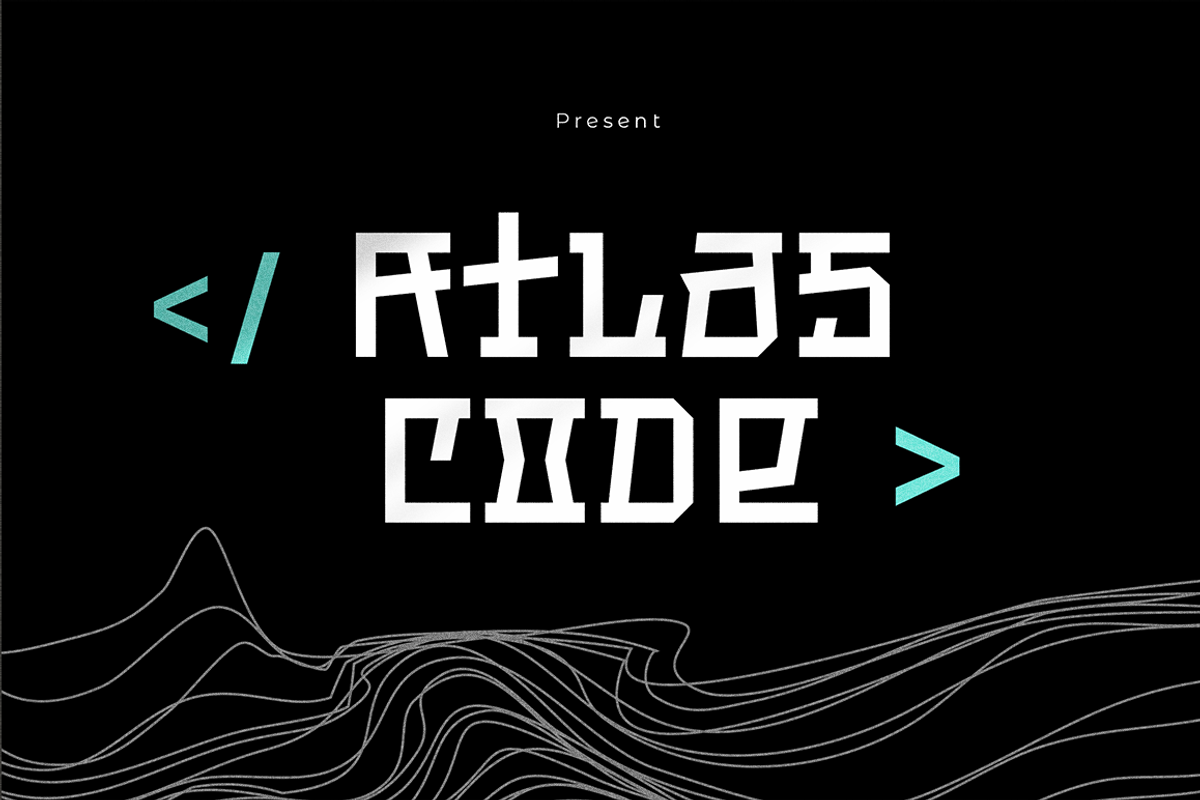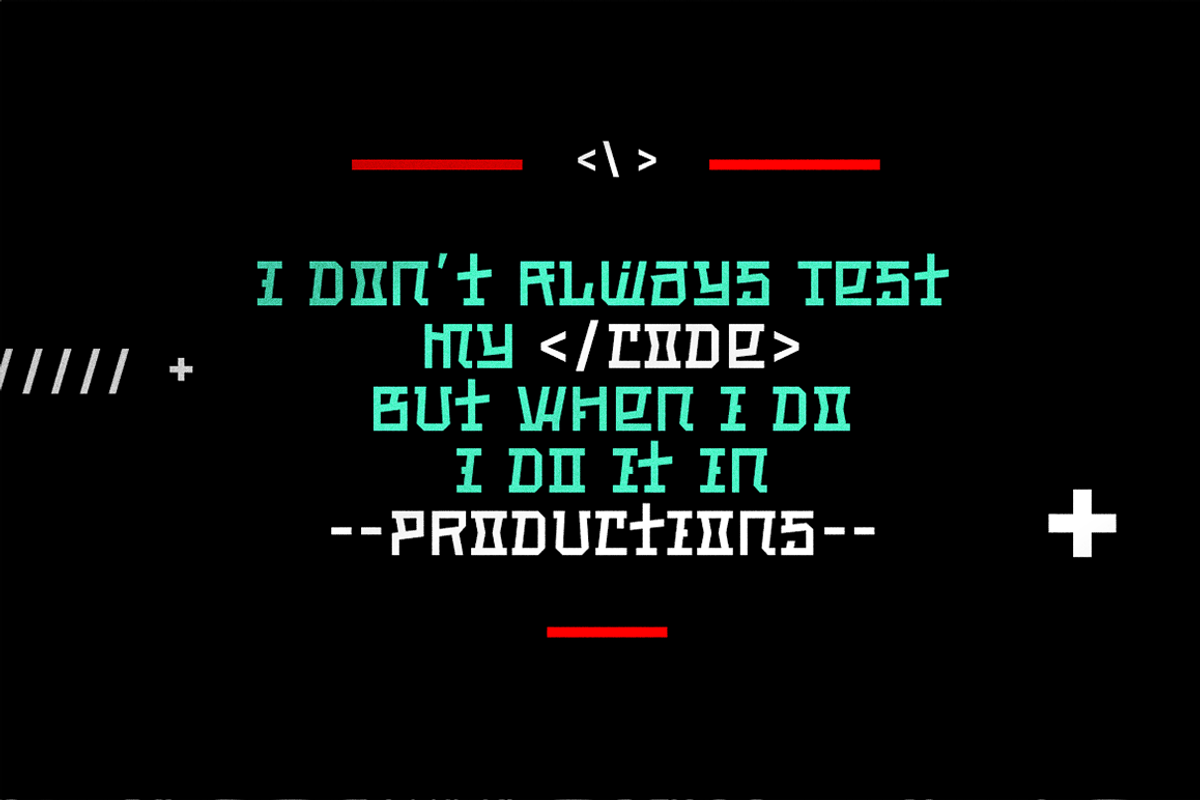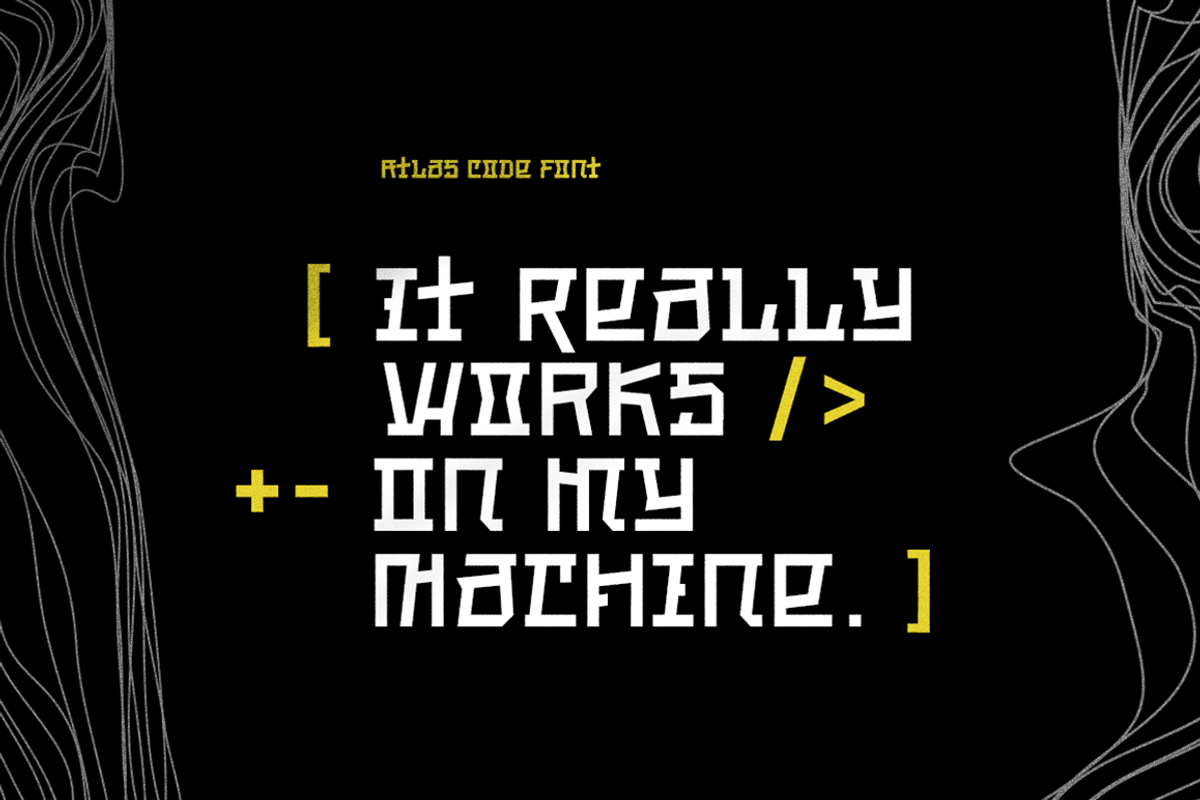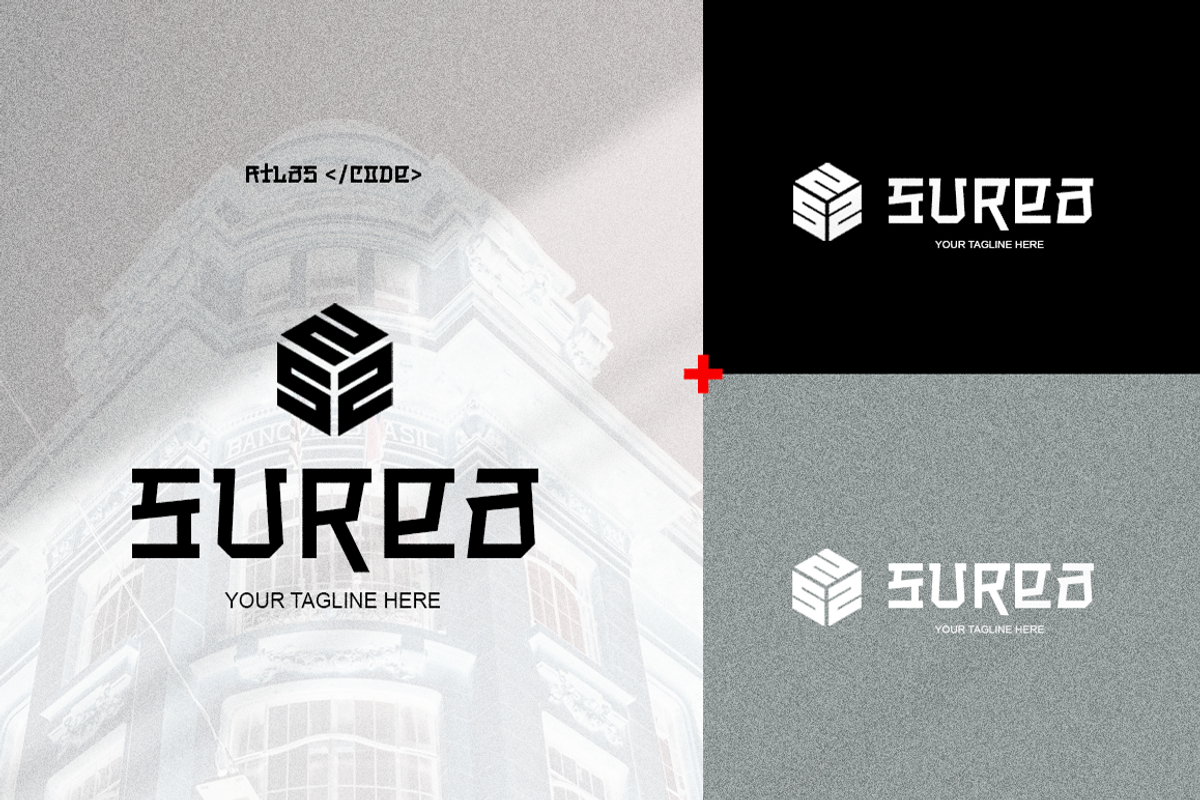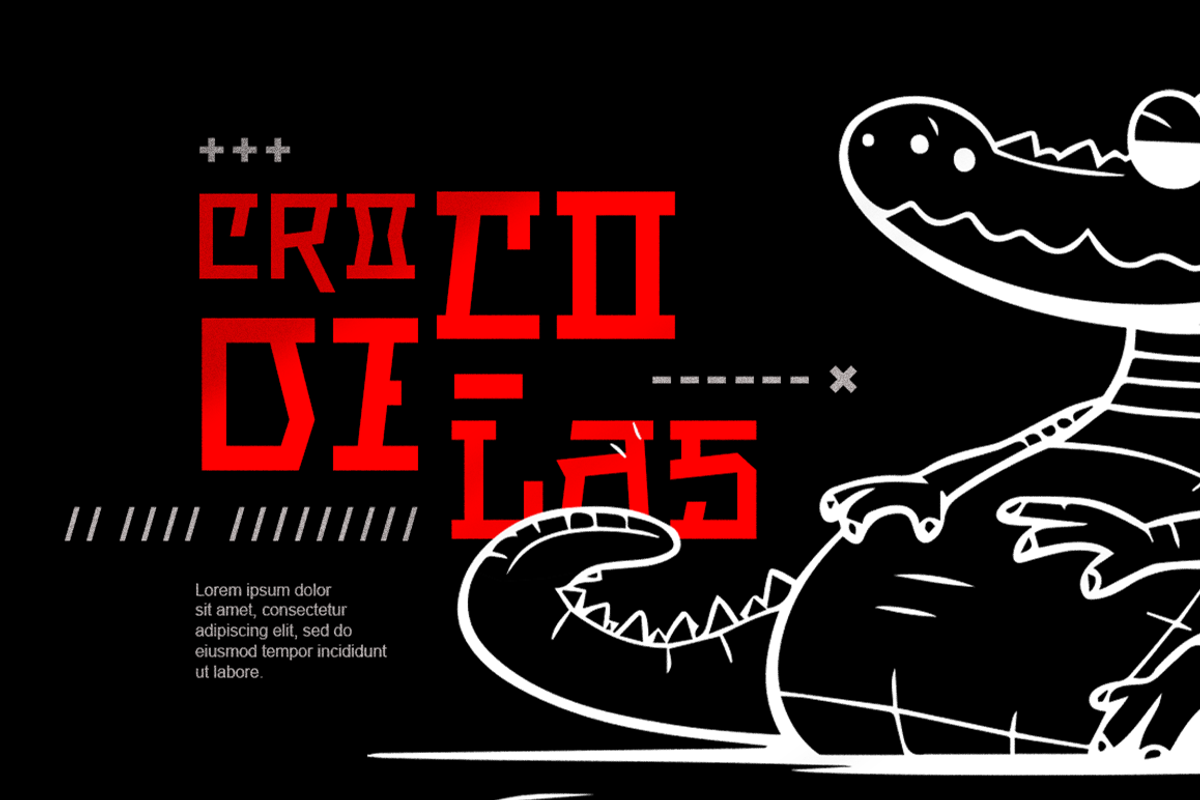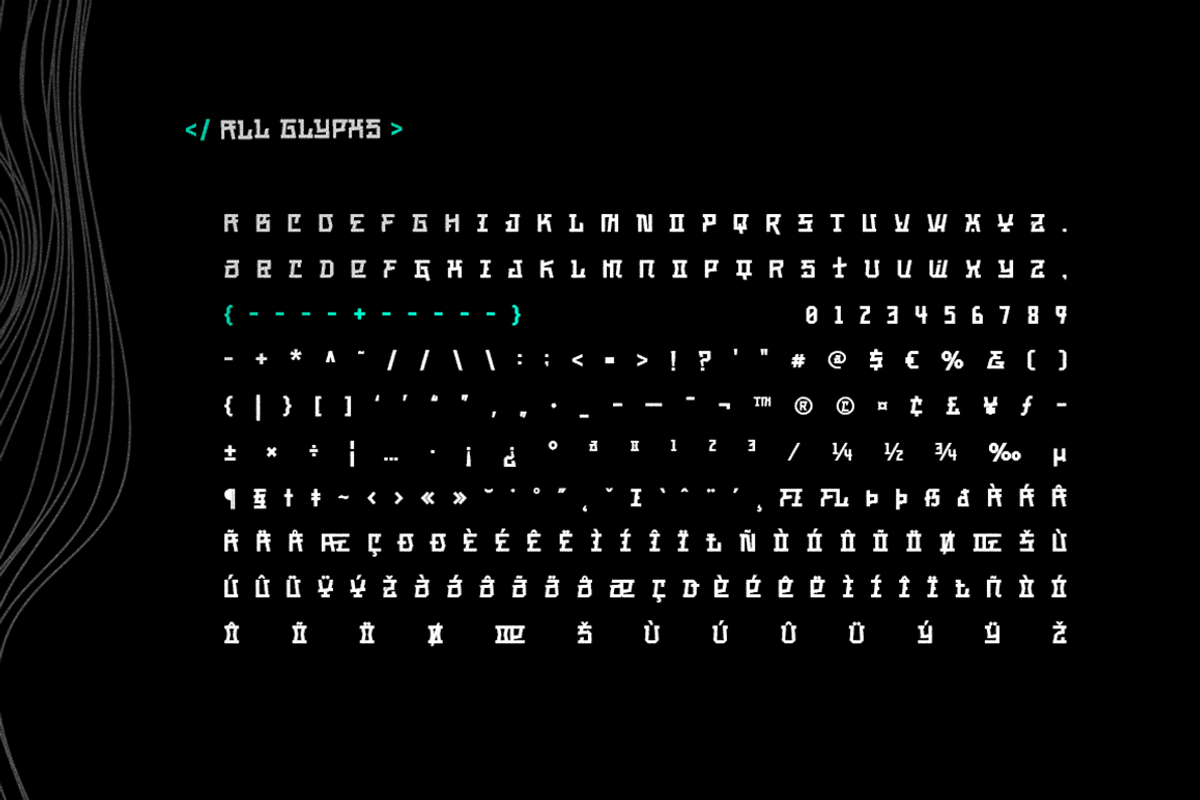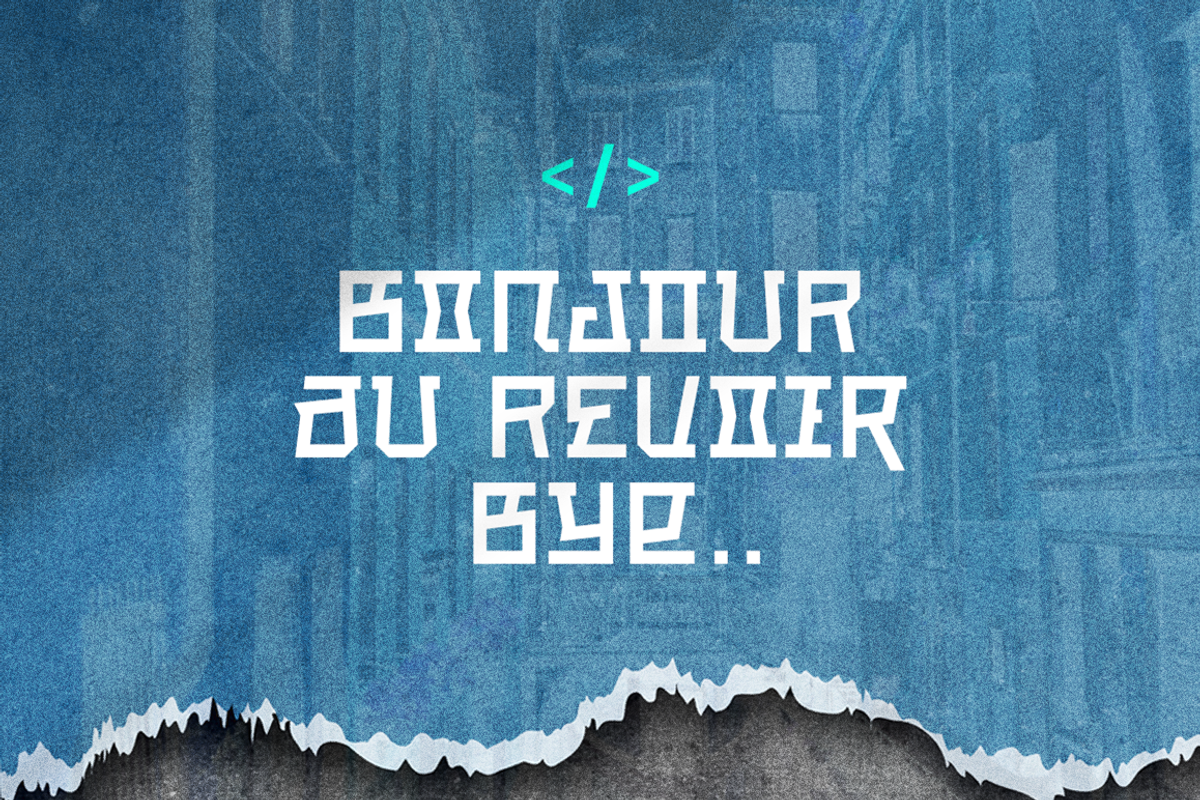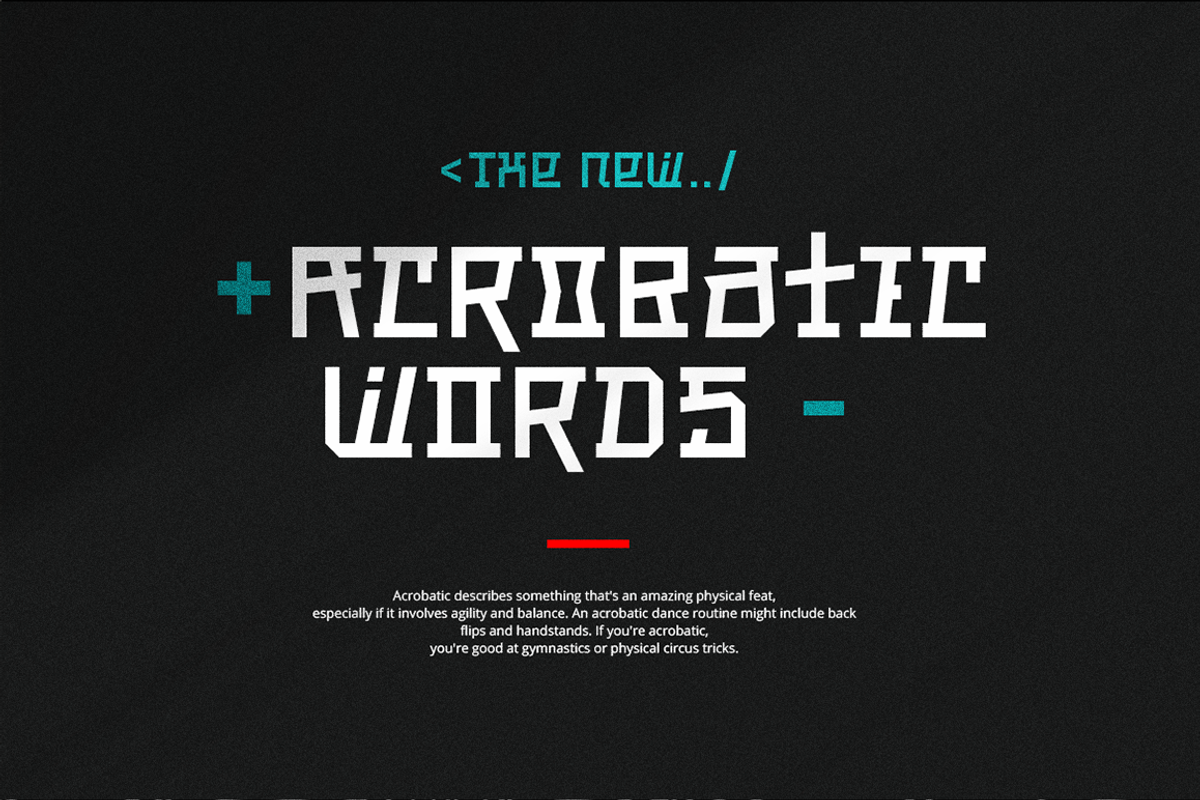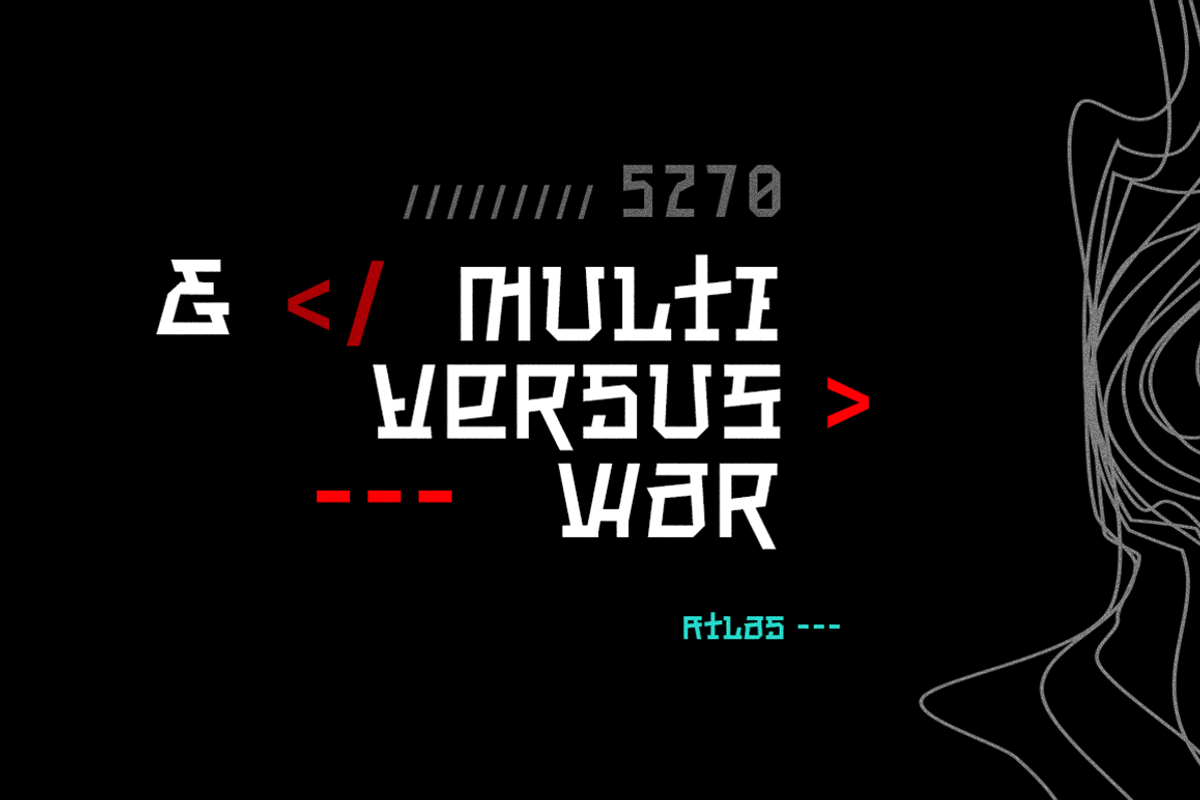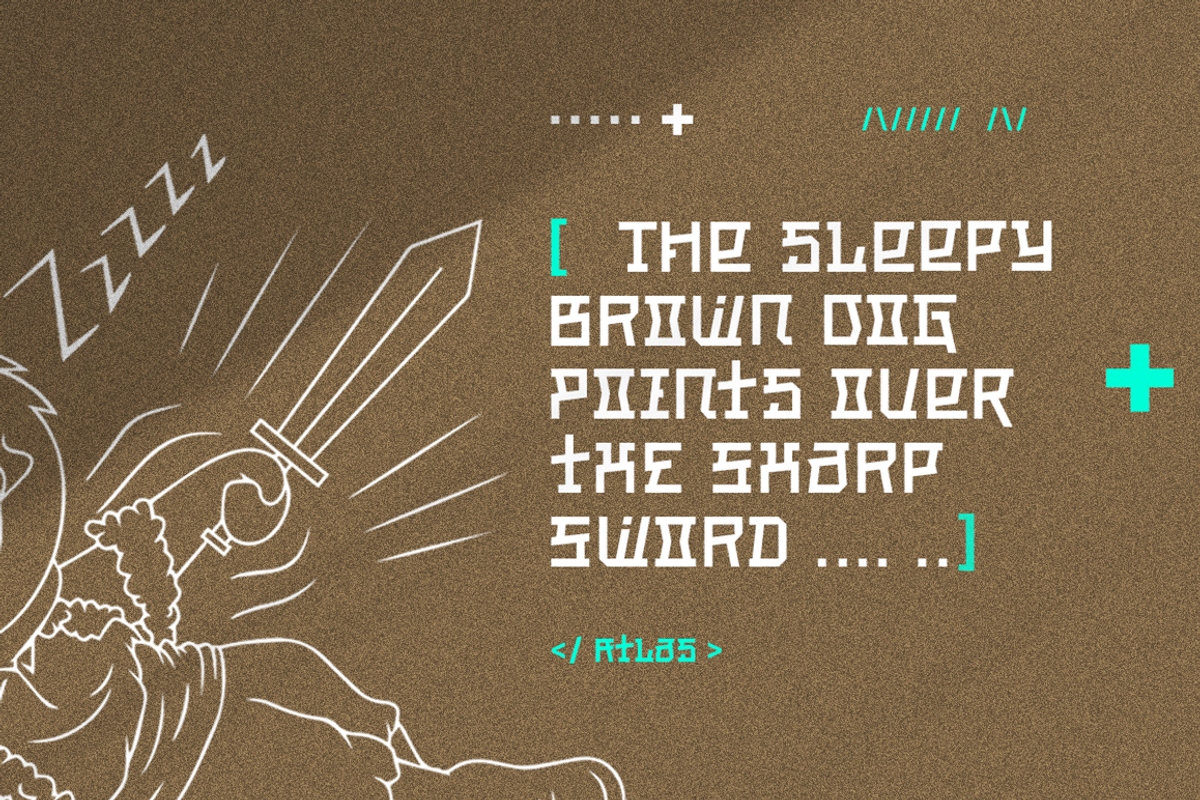
Atlas Code
Atlas Code is a modern, futuristic typeface with a unique character, perfect for innovative brands and digital projects. Its sleek lines and distinct geometry give it a bold, contemporary feel, making it an ideal choice for logotypes and branding that demand attention. With its clean structure and cutting-edge style, Atlas Code conveys sophistication, creativity, and forward-thinking design, ensuring your brand stands out in any environment. Perfect for tech companies, creative agencies, and anyone looking to make a modern, memorable impact.
- Urban Style Font
- Basic Latin Glyphs
- Unique All Caps Font
- Currencies